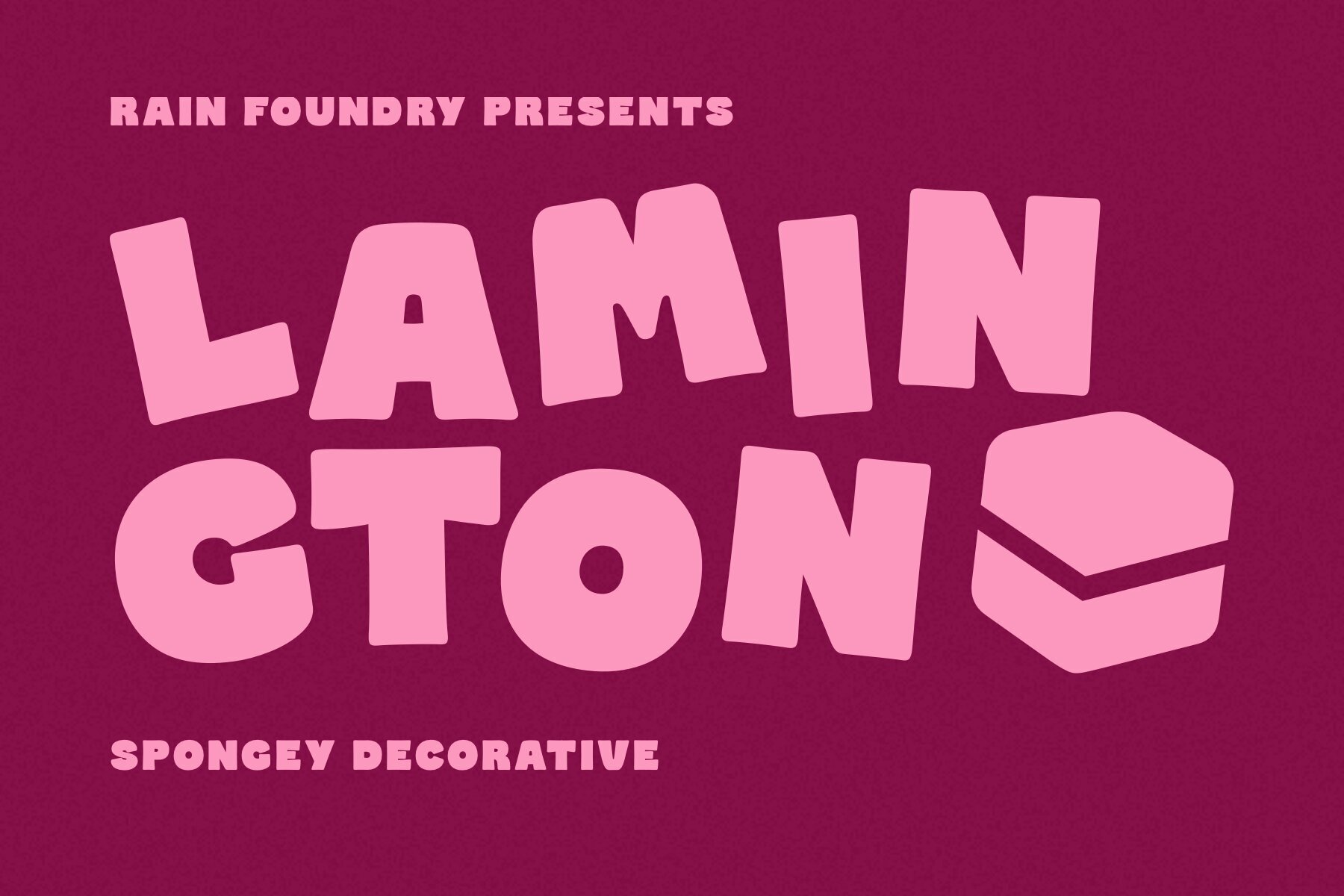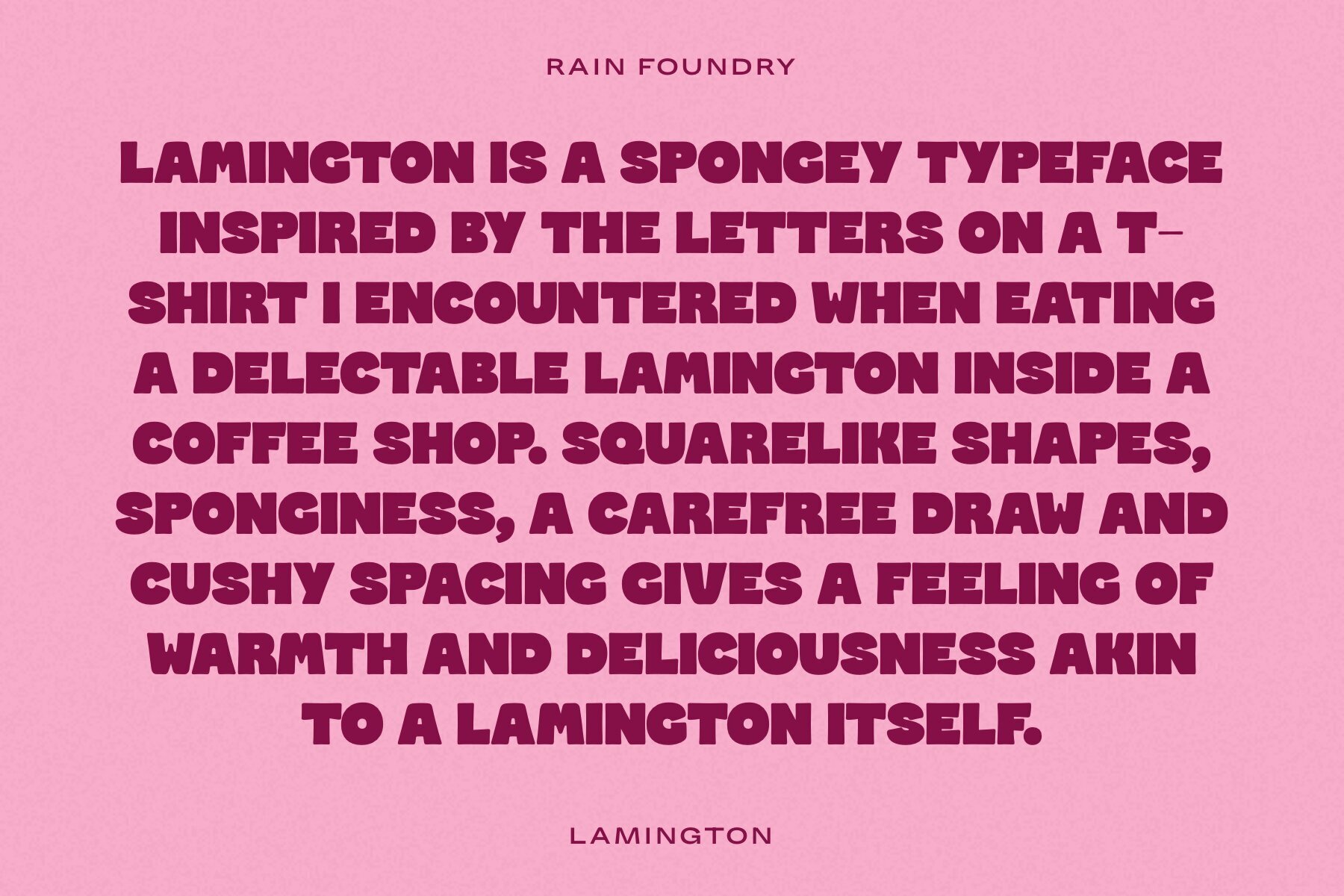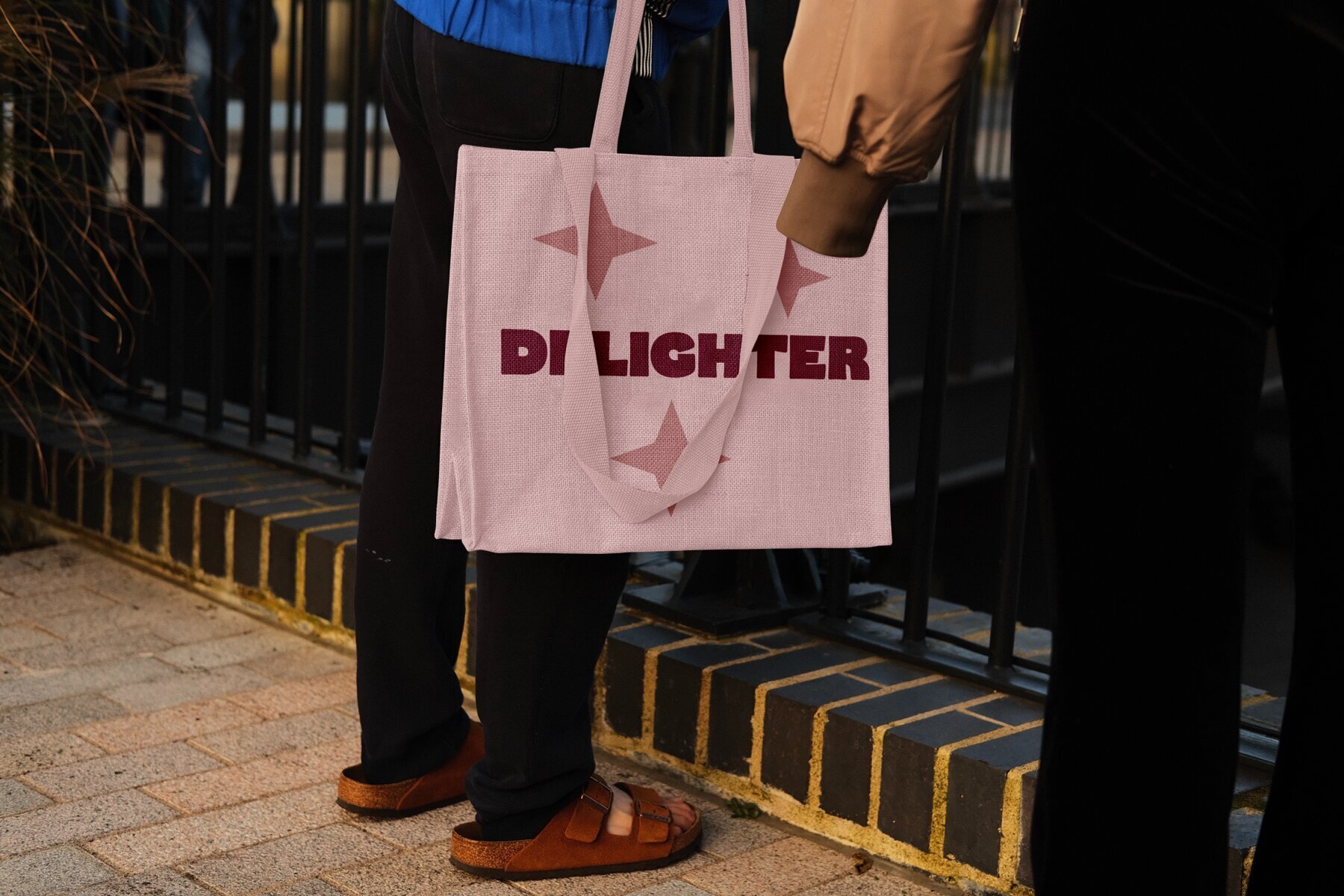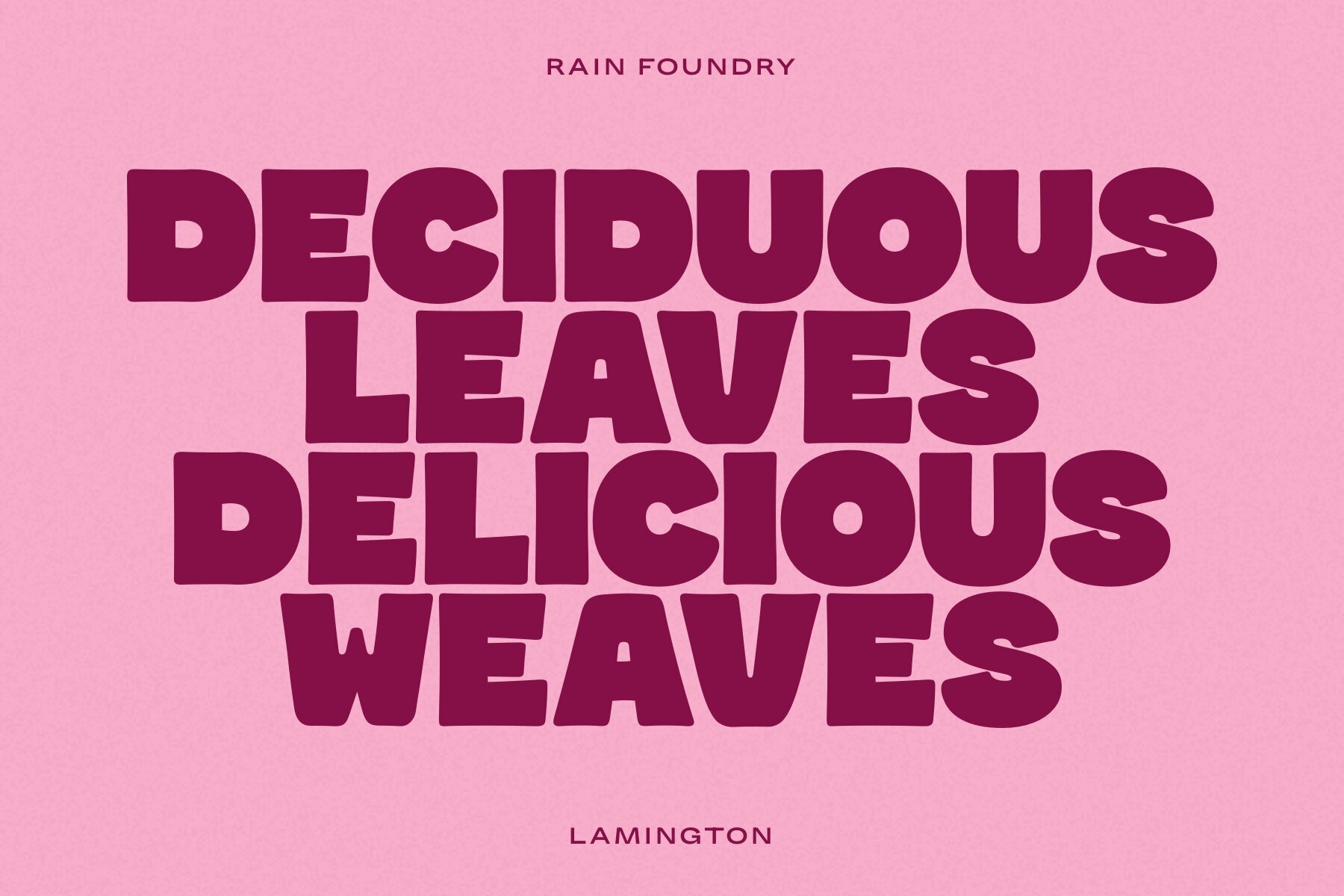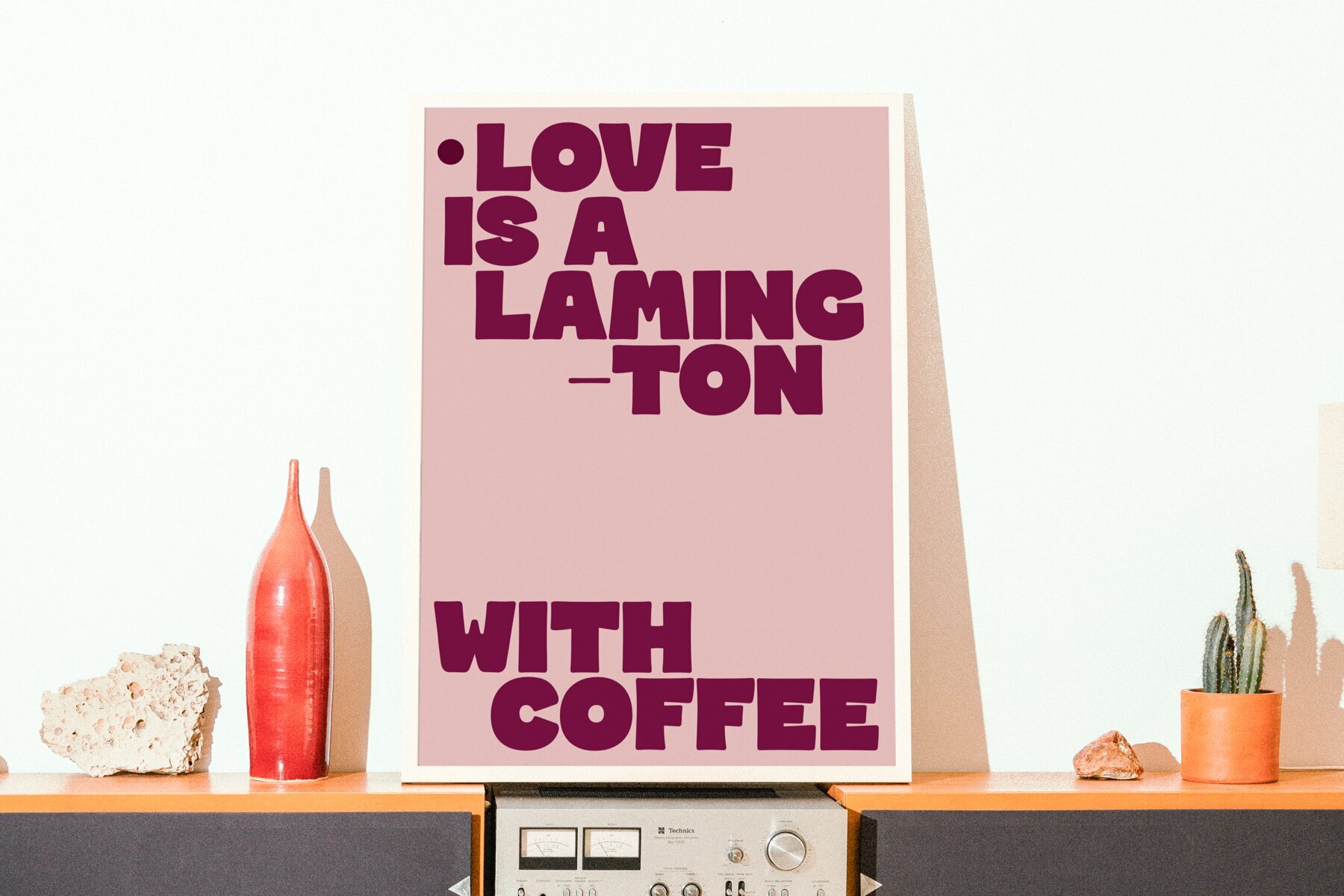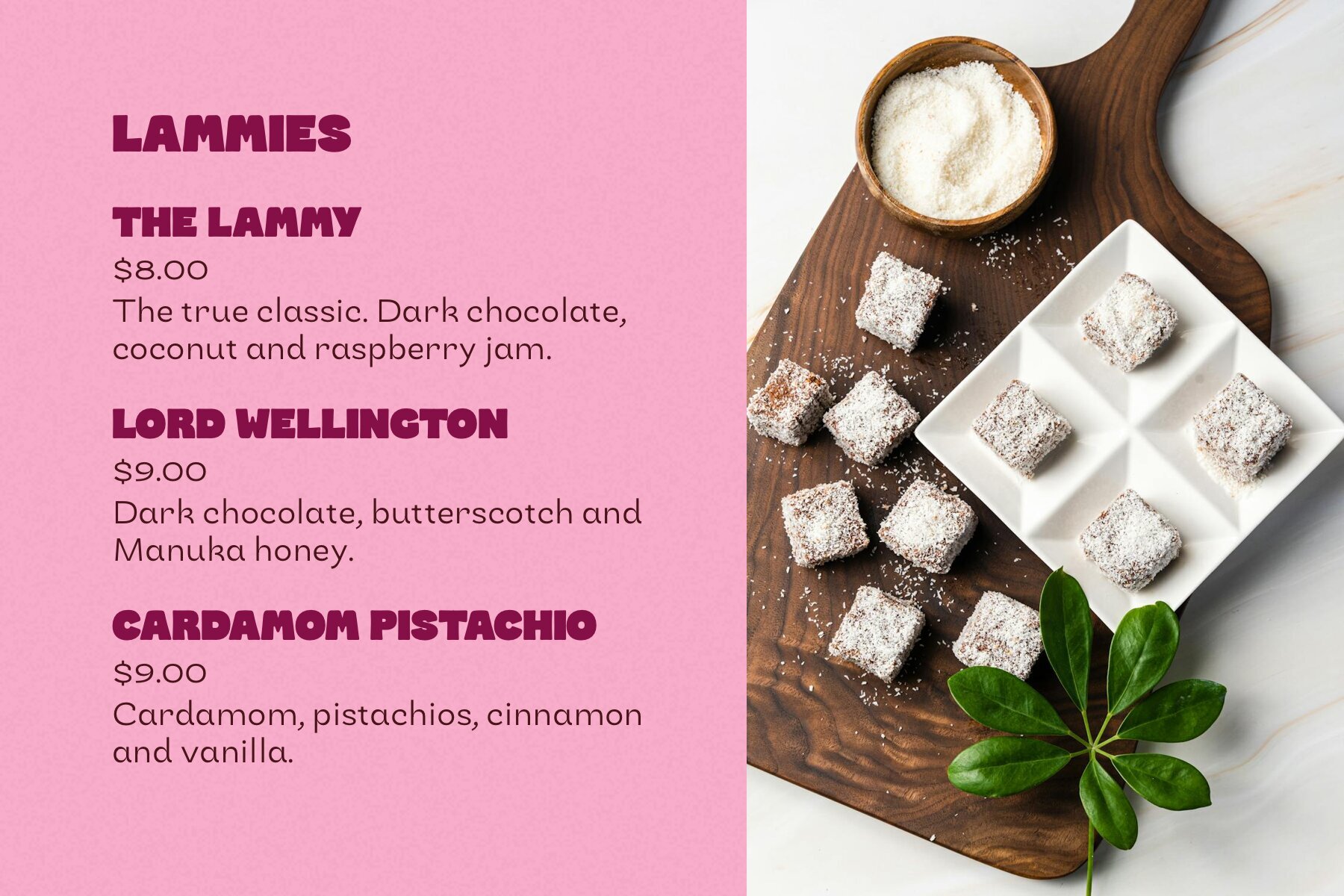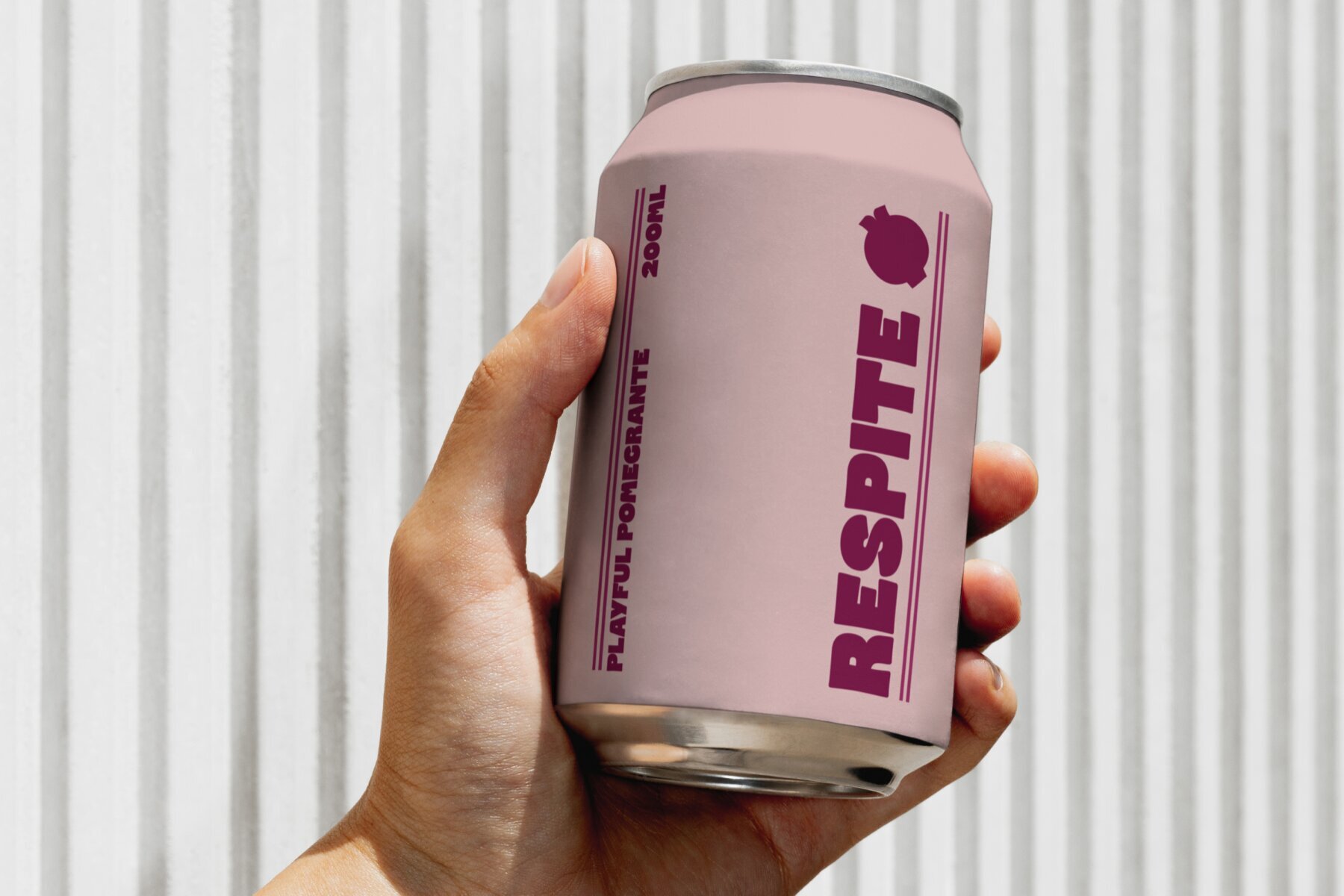
Lamington Font
Lamington Regular
Lamington captures the playful essence of a cozy coffee shop indulgence. Its square-like shapes and cushy spacing evoke the warmth and comfort of a spongey dessert, creating an inviting and lighthearted feel.Lamington: A Whimsical Typeface Inspired by Sweet Delights
Rain Foundry is a collection of typefaces by Carl Benedict Rain. What started for me as a mere curiosity, became an idea, an escape and a means of melodic and technical expression. I’d hope that my typefaces would make you feel the same escape as I would, and see them come to life.